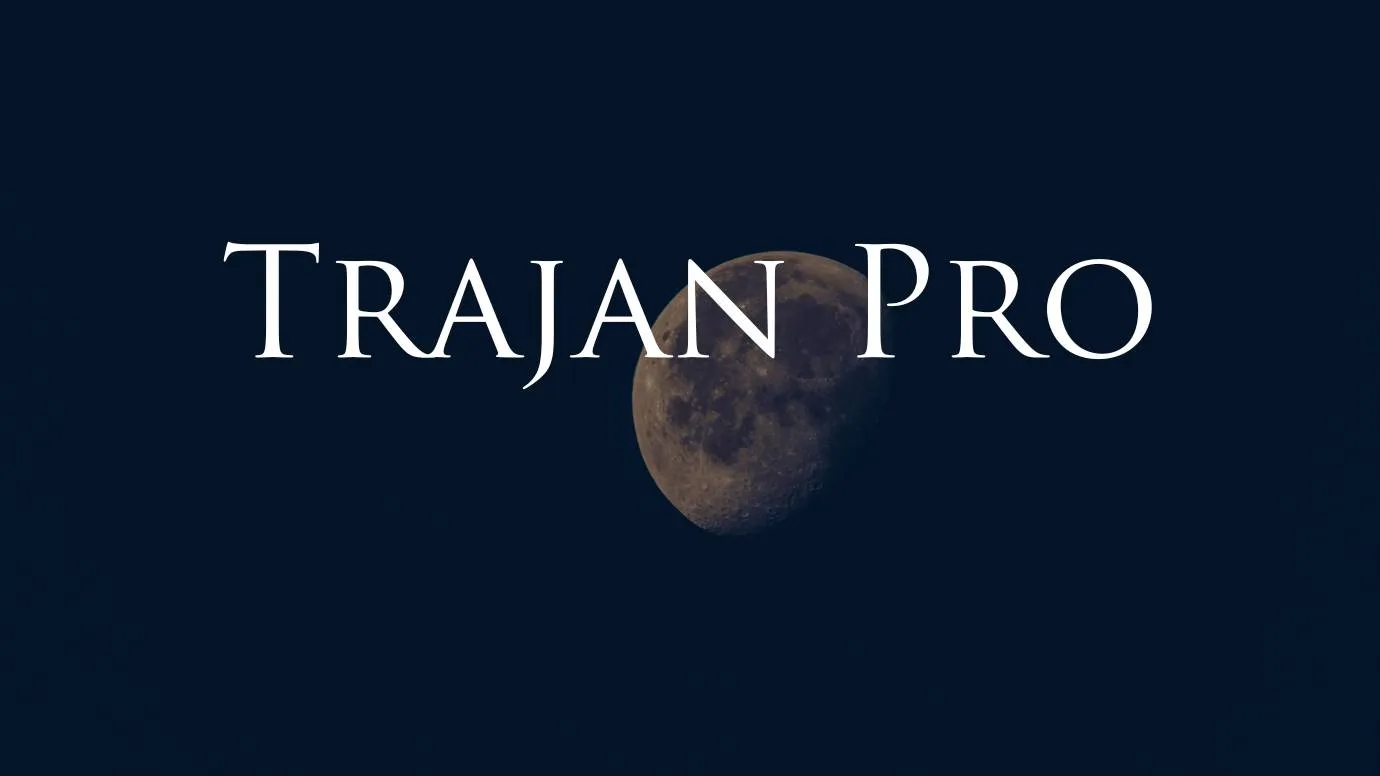
Trajan Pro Font
About This Font
Trajan Prois the serif typeface that was designed many years back. Carol Twombly has been working for adobe for a long period of time and she designed many different typefaces that include Lithos and MyriadPro Font and many more. This bold font was used for circuits.
This is one of the best versions of the Trajan font family and this typeface also has the great support of the European language. This typeface got updated several times and Trajan pro 3 was the latest addition to this typeface family.